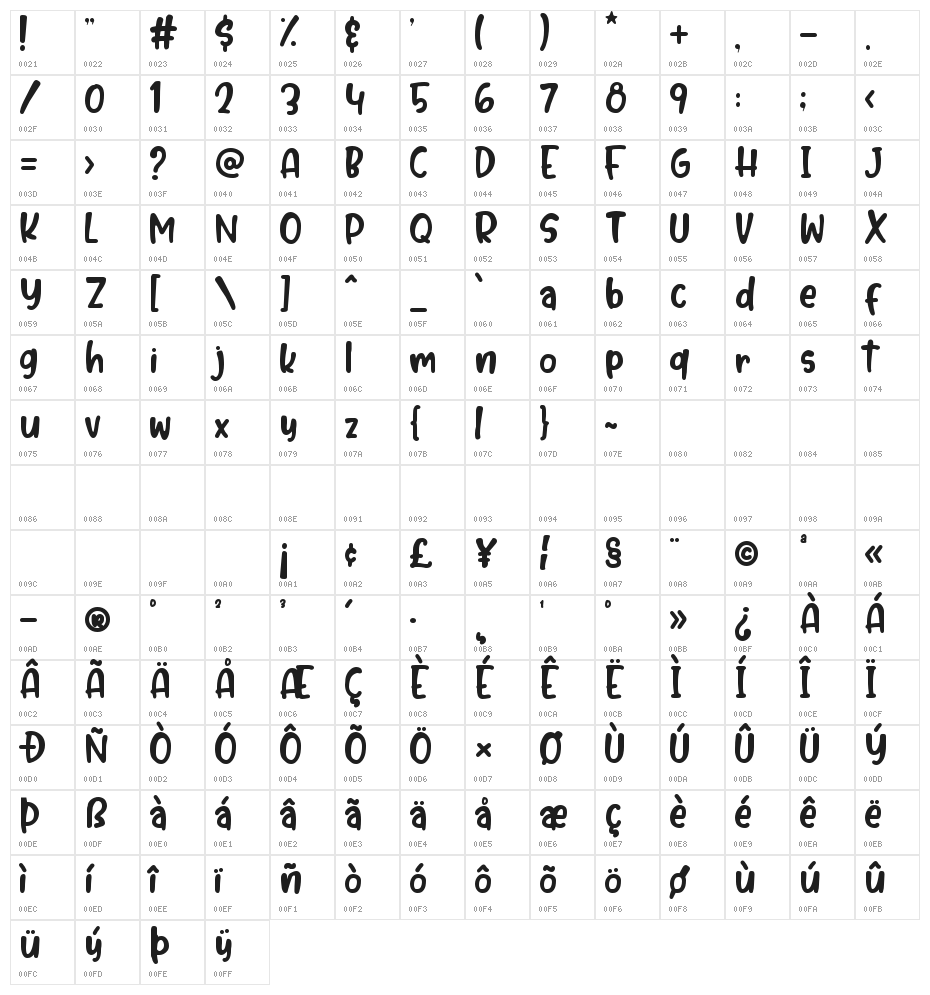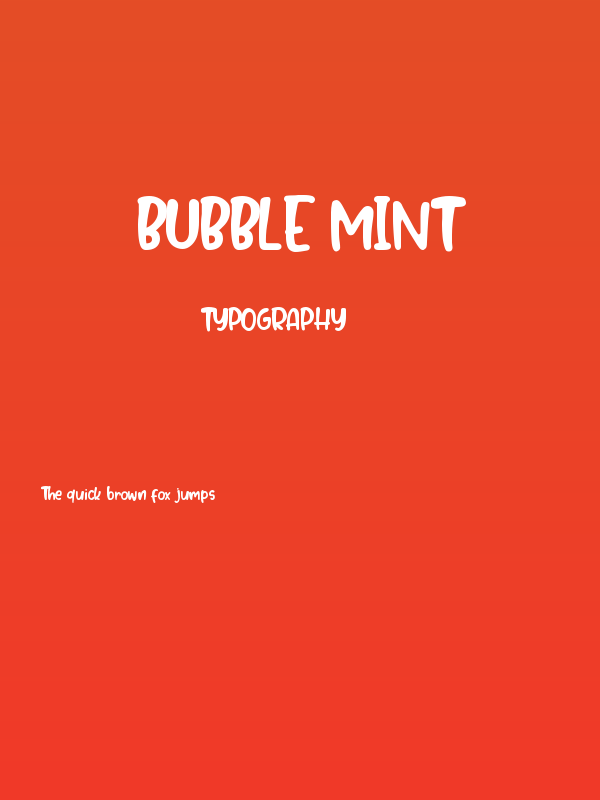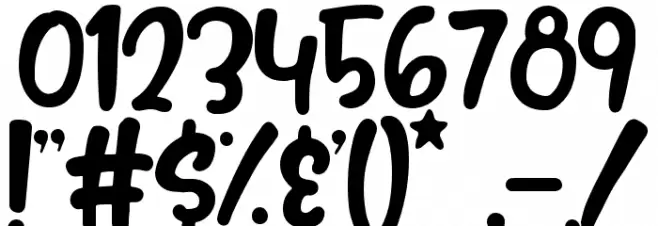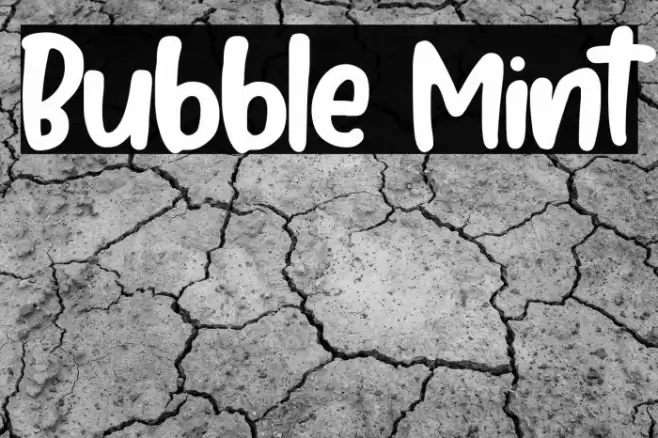
Bubble Mint Font
Bubble Mint Description
This playful and bold font features rounded, bubbly characters that exude a sense of fun and whimsy. The letters are thick and have a consistent stroke width, creating a uniform appearance that is both eye-catching and easy to read. The font's rounded edges and smooth curves give it a friendly and approachable feel, making it ideal for projects that require a touch of lightheartedness. The numbers and special characters maintain the same playful style, ensuring consistency across all text elements. Its unique style makes it stand out, while still being versatile enough for various design applications.
| Overall Style | Playful, Fun |
| Proposed Projects | Perfect for children's books, playful branding, party invitations, or any project needing a fun and approachable typeface. |